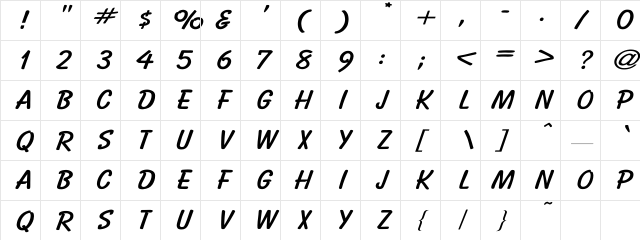
BassoonExt Regular
Design Context for BassoonExt
BassoonExt is a composed and adaptable typeface that performs quietly and consistently across a wide range of design contexts.